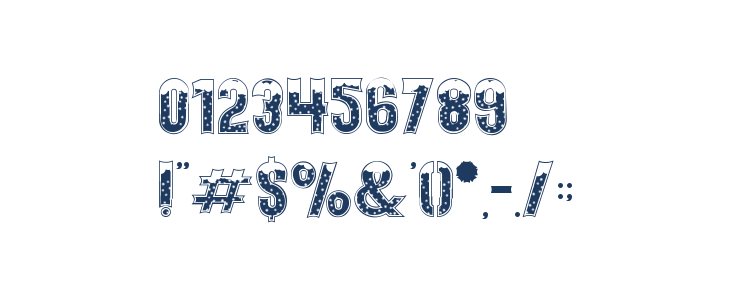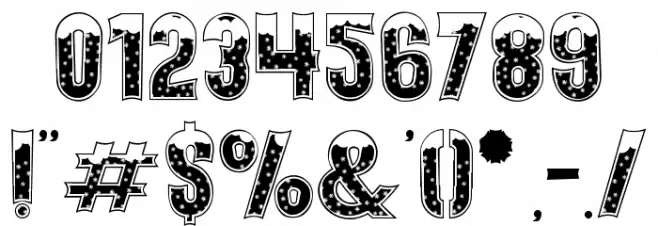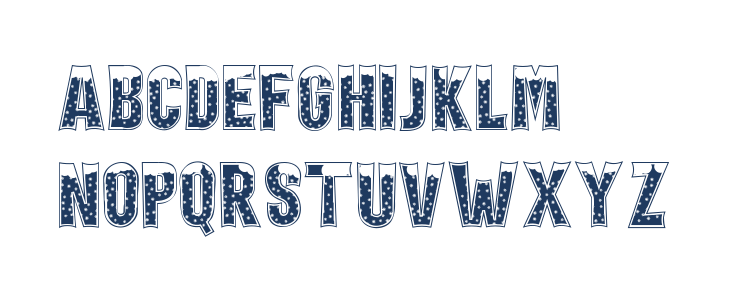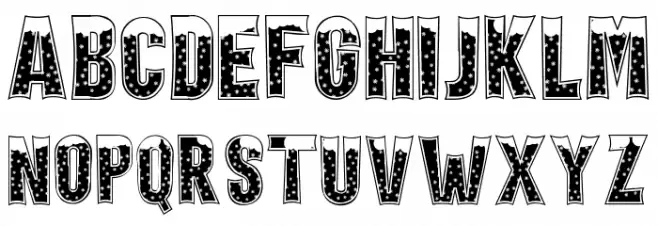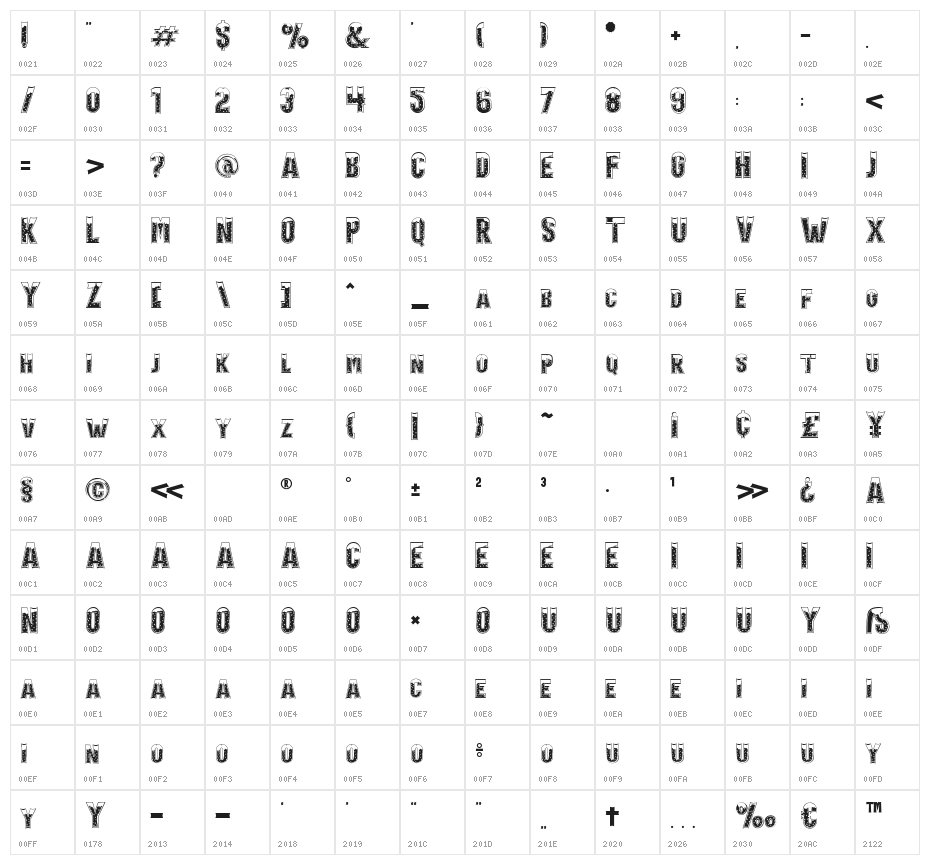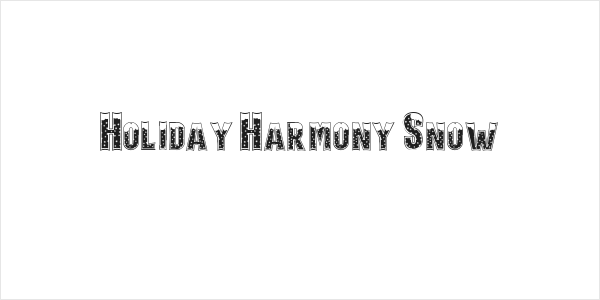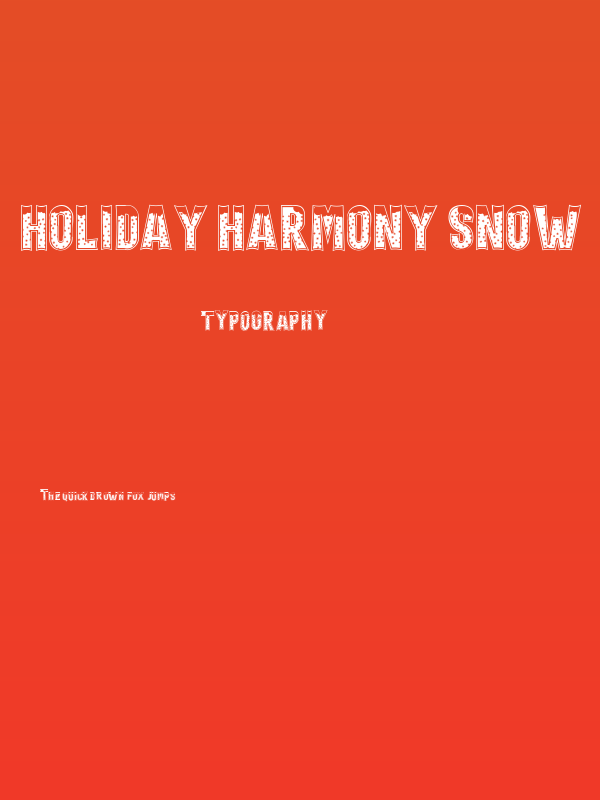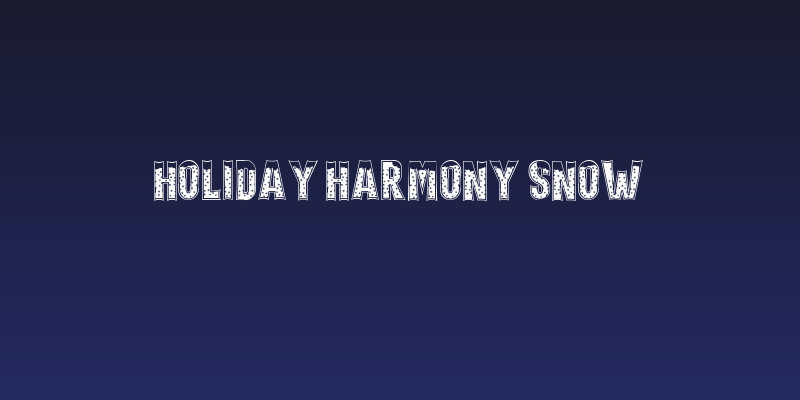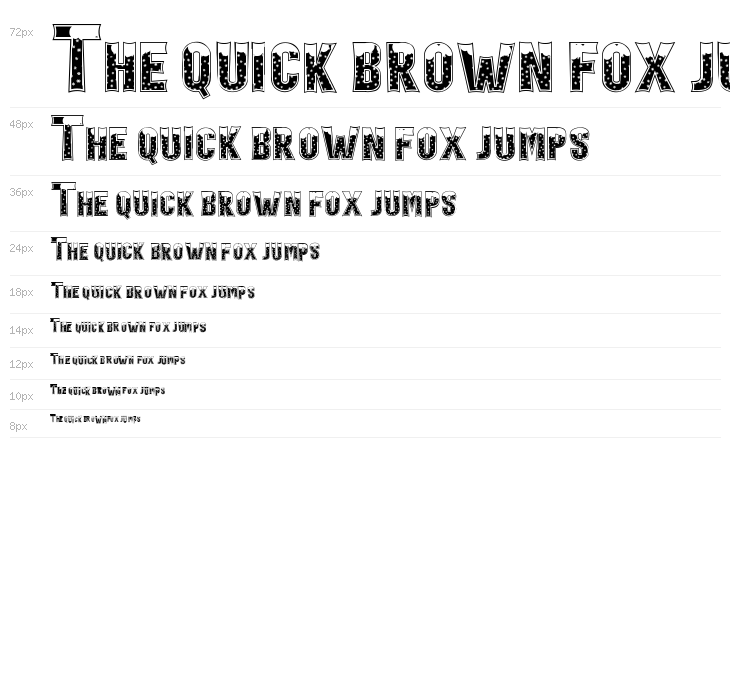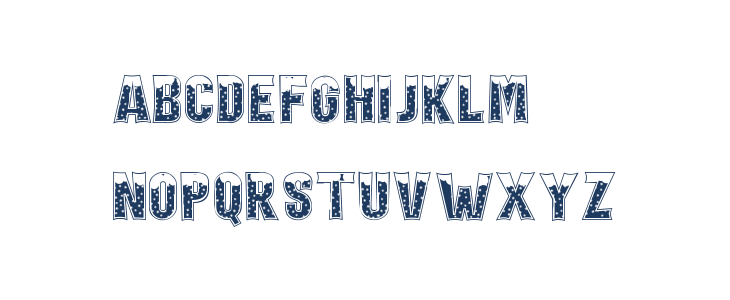
Holiday Harmony Snow Font
Holiday Harmony Snow Description
A bold, decorative display font with a festive, winter-themed design featuring star and snowflake patterns inside blocky, outlined letters and numbers. The characters have a playful, hand-drawn quality and are all uppercase, with strong geometric shapes and high visual impact.
| Overall Style | Decorative, Festive, Playful |
| Use Case | Headlines, Posters, Logos, Event Materials |
| Proposed Projects | Holiday cards, event posters, seasonal branding, party invitations, festive banners, children's book covers. |